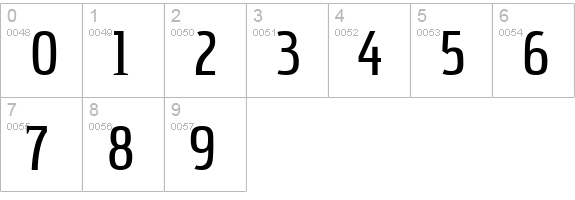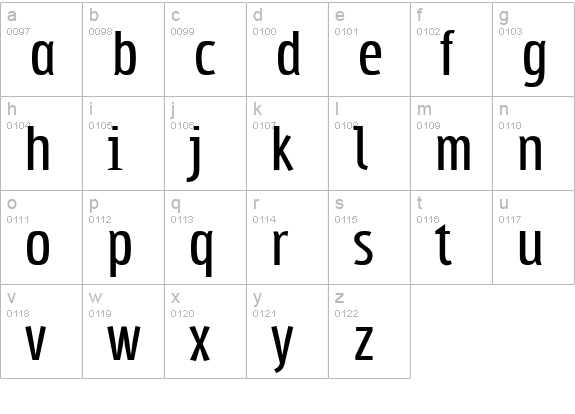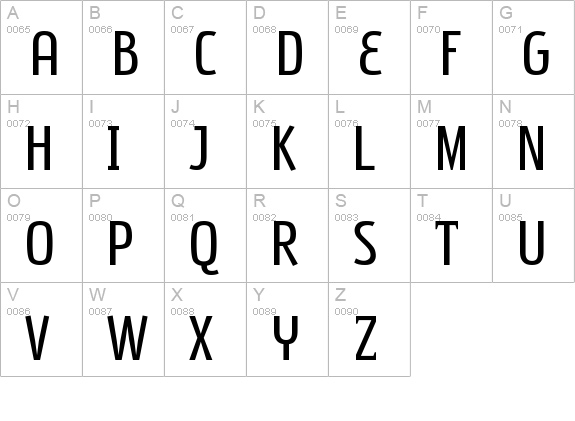
Subpear Font Details
Subpear font is a versatile and modern typeface that exudes elegance and sophistication. With its sleek lines and rounded edges, Subpear is perfect for a wide range of design projects, from branding to editorial design. This font is available in a variety of weights and styles, making it easy to customize and adapt to suit your needs. The best part? Subpear font is completely free to download at FontsMarket.com. That's right, you can get your hands on this stylish font without spending a dime. Whether you're a designer looking to add a new font to your collection or a business owner in need of a fresh look for your brand, Subpear font is the perfect choice. Download it today and elevate your designs with this stunning typeface.